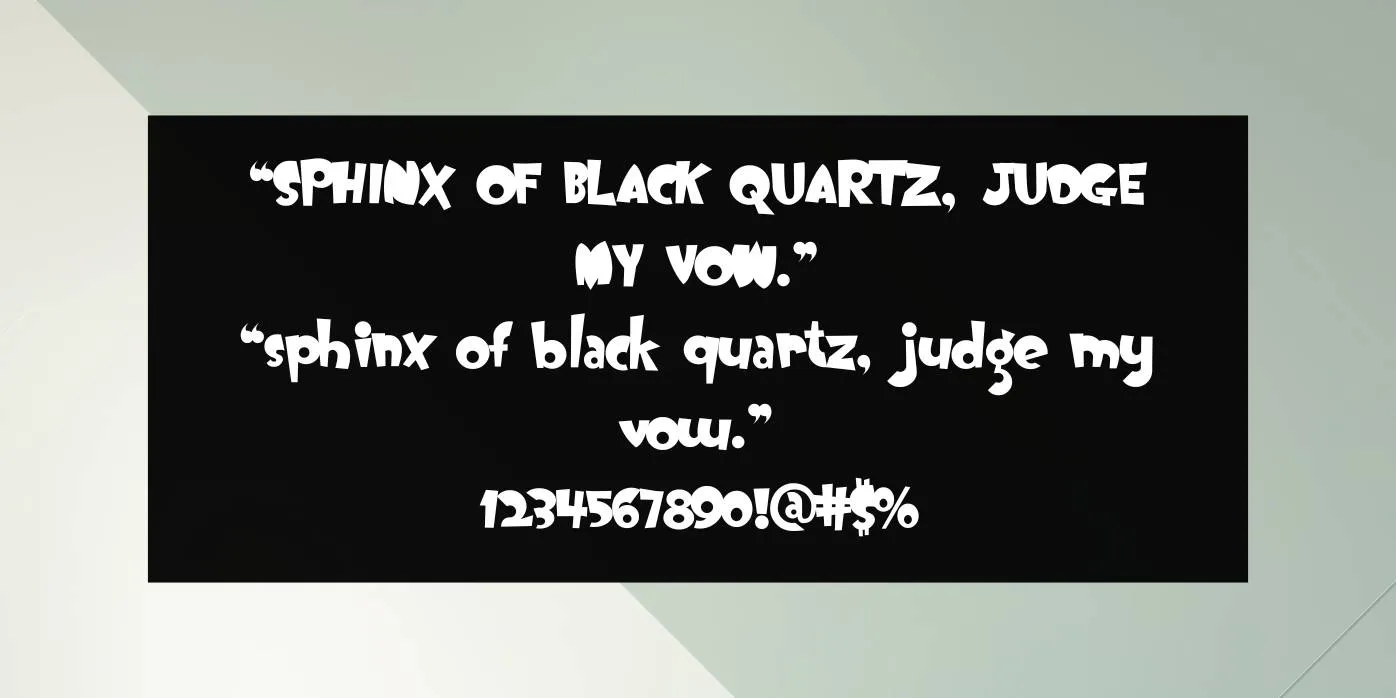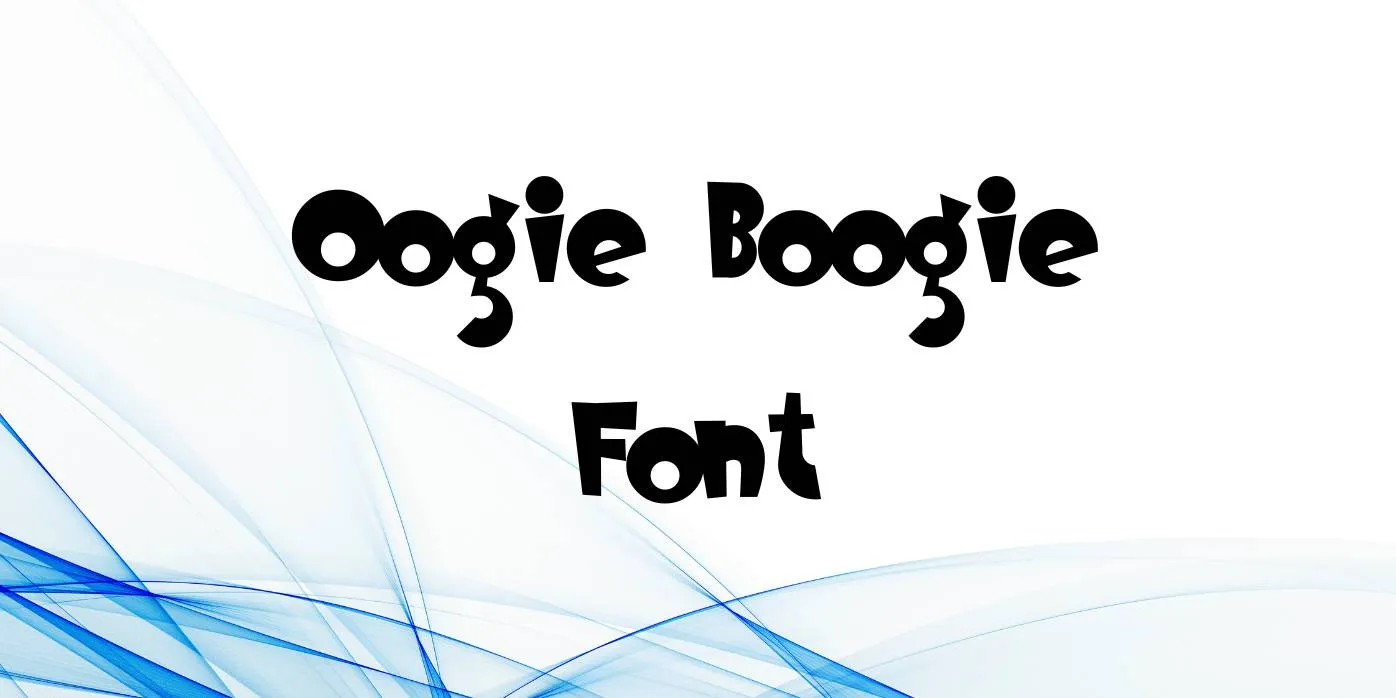
Oogie Boogie Font
Let’s talk about a very interesting fancy font Oogie Boogie font. It was designed by J.F.Y. Daniel and launched by Gaut Fonts. It is a cartoon fancy font that gives attractive looks to many projects personal or commercial.
It can also be used for pairing with other fonts like sparkly font to make your projects look more amazing. It contains 216 characters, 219 glyphs, and 1000 units per Em. This typeface is a very famous font and achieved so much success. This stunning typeface supports file formats TTF and OTF and you can download it on many devices such as Windows, MAC, IOS, and Android.
The weight of the font is bold and its width is medium (normal). Because of its eye-catching look, it is the most popular font on the internet. Usage     You can make different amazing designs by using this font. It has many features like characters, symbols, numbers, small letters, capital letters, punctuations, and special characters.
To make eye-catching headlines you can use this font. It can be used for making titles of movies and different TV shows. For making storybook covers related to kids or cartoons you can also use it. In Adobe Photoshop and other Illustrators, you can edit or design new projects.
This typeface can be used to make posters for travel and other greeting cards. It can be read easily even in small-size projects. In CSS and Canva this stunning typeface can also be used. It is good for both print and digital type media.